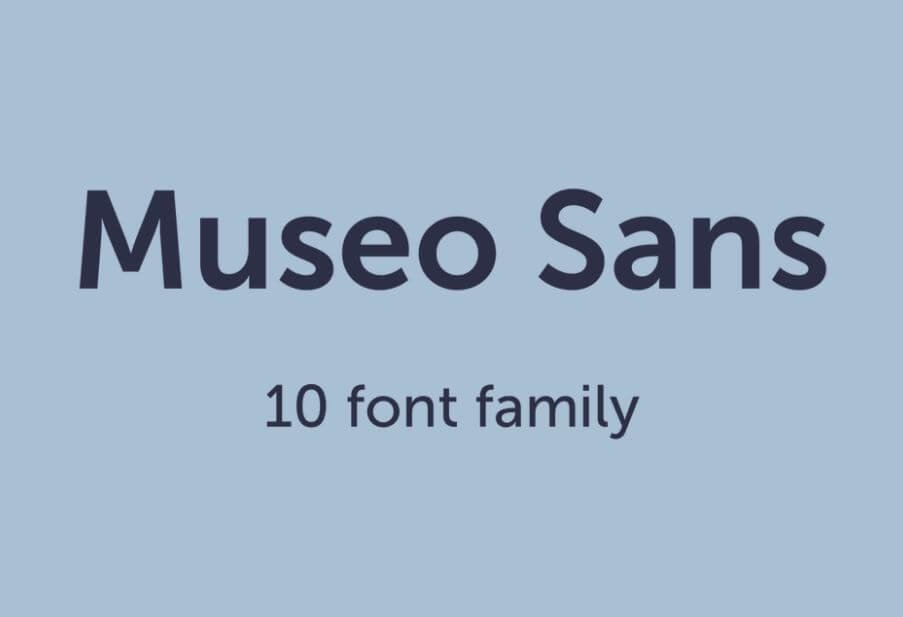
Museo sans font is a great font contribution by way of exljbris font foundry. This font family includes 10 patterns and all of the patterns have there very own importance attraction and perfection.
This extraordinary typeface continues up a thick texture because of enormous strokes that display particularly superb and remarkable fine. Alongside these lines, it could significantly use for numerous initiatives.
Designers of Museo want to make it a greater versatile typeface that looks like cooper black, so they brought lowercase paperwork in it and preserve the spacing and kerning with a purpose to increase its legibility.
This first-rate fine font that looks like the foregen vintage has included 5 wonderful styles which include mild, normal, formidable, script, & gradient. Each and every style has 163 quantity of characters with open type layout.
After inspecting this outstanding font inscribed anywhere an awesome-honed designer need to understand the inscription of the designer in the path of growing it.
Many designers in every unmarried region the globe are utilizing it. For their ongoing tasks because of its robust factor and excessive legibility.